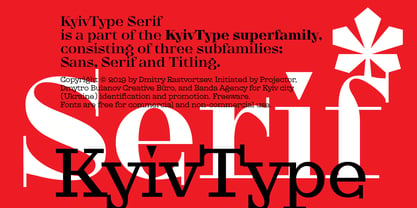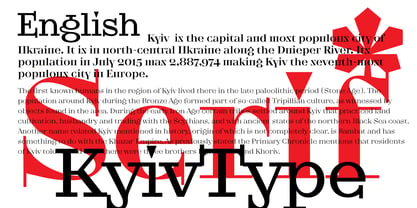
KyivType Serif
by Dmitry Rastvortsev
Medium Contrast
Low Contrast
High Contrast
KyivType Sans is a part of the KyivType superfamily, consisting of three subfamilies: Sans, Serif and Titling.
Also available KyivType Variable superfamily.
Designers: Dmitry Rastvortsev